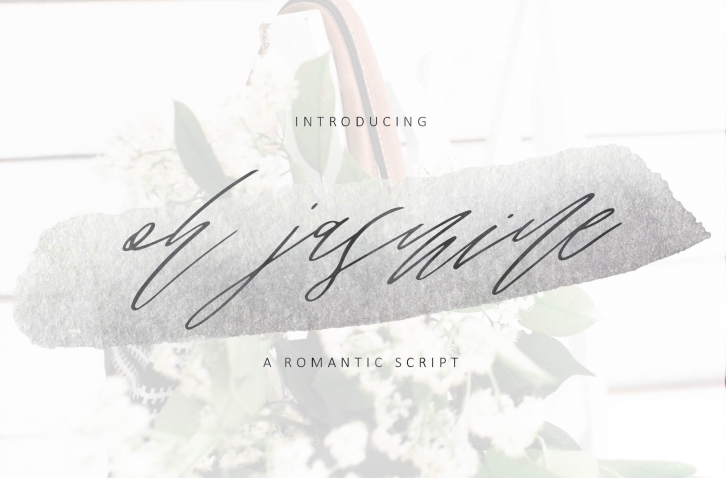
"oh jasmine" is a handwritten signature typeface coming in two different versions with a lot of alternates & ligatures. Its romantic handwritten look makes it the perfect fit for feminine logos, printed quotes, wedding invitation cards, social media headers, product packaging and a lot more!